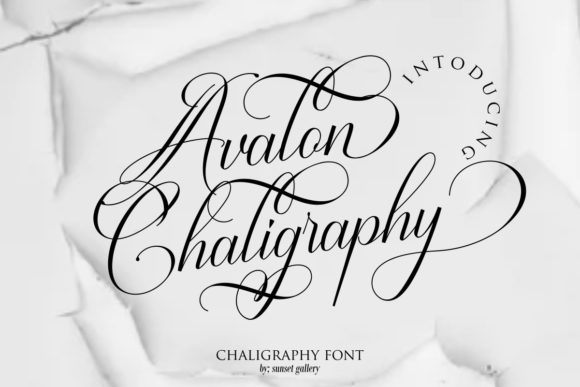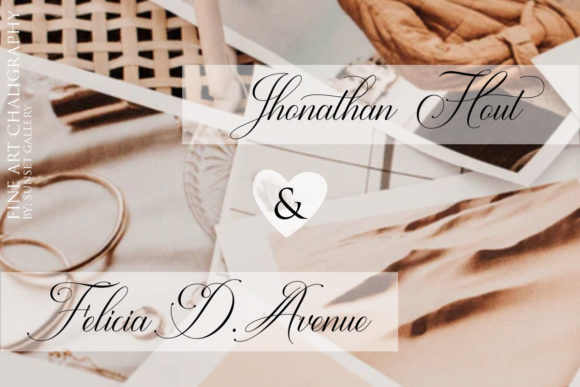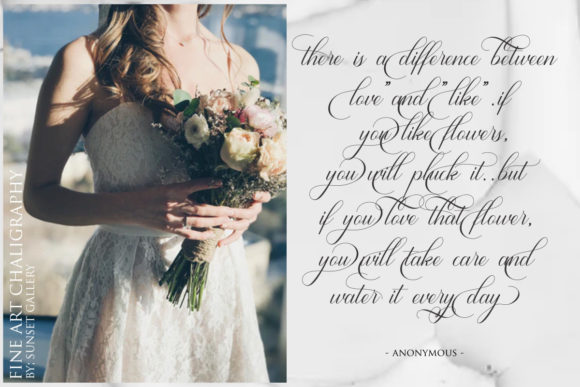
About Avalon Chaligraphy Font
Avalon Chaligraphy is a beautiful and refined script font. It has a classy, elegant and modern look that can be used for a variety of design ideas. Avalon Chaligraphy is PUA encoded which means you can access all of the amazing glyphs and ligatures with ease!